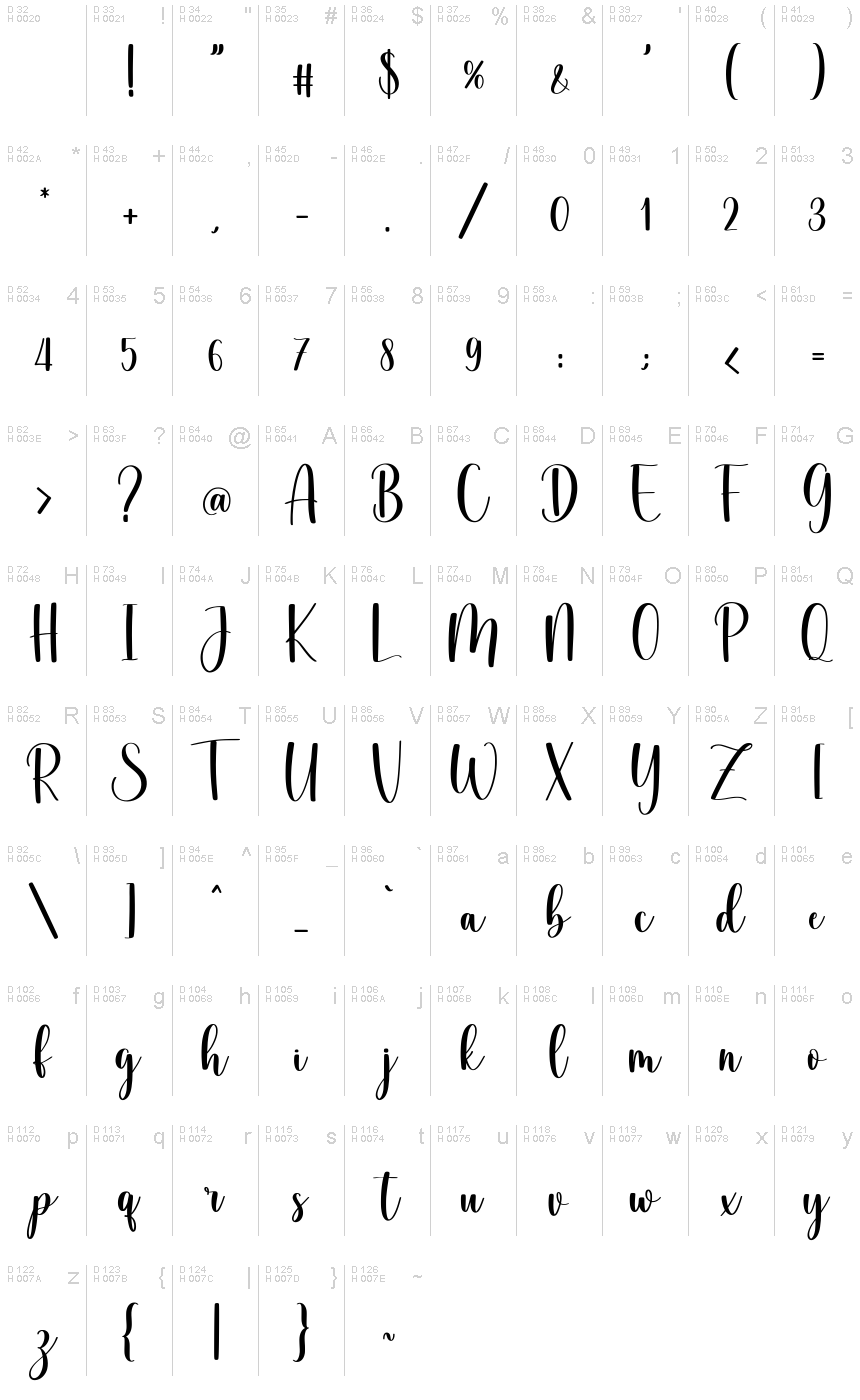
Yulian_DEMO
Yulian, a semi-light handwritten font crafted by Makashi, offers a distinctive blend of casual charm and elegant fluidity. Its carefully designed characters exude a natural, flowing grace that seems to capture the spontaneity of pen on paper. The gentle curves and subtle variations in stroke weight imbue Yulian with an approachable warmth that is both inviting and aesthetically pleasing.
The aesthetic appeal of Yulian lies in its balance between readability and stylistic flair. Each letterform is constructed with attention to detail, ensuring clarity without sacrificing the personal touch inherent to handwritten styles. This makes it an excellent choice for designs that require a humanistic feel, such as invitations, branding materials, or editorial content where personality is key.
Yulian's versatility extends to a wide range of creative projects. Whether you're looking to add a touch of sophistication to your social media graphics, seeking the perfect font for your blog's logo, or aiming to give your product packaging a bespoke look—Yulian delivers style without compromising on function. Its semi-light weight provides enough presence for stand-out headlines while remaining delicate enough for longer passages of text.
In essence, Yulian embodies the artistry of handcrafted typography with each stroke reflecting Makashi’s design prowess—a stellar choice for those seeking to infuse their work with authenticity and elegance.